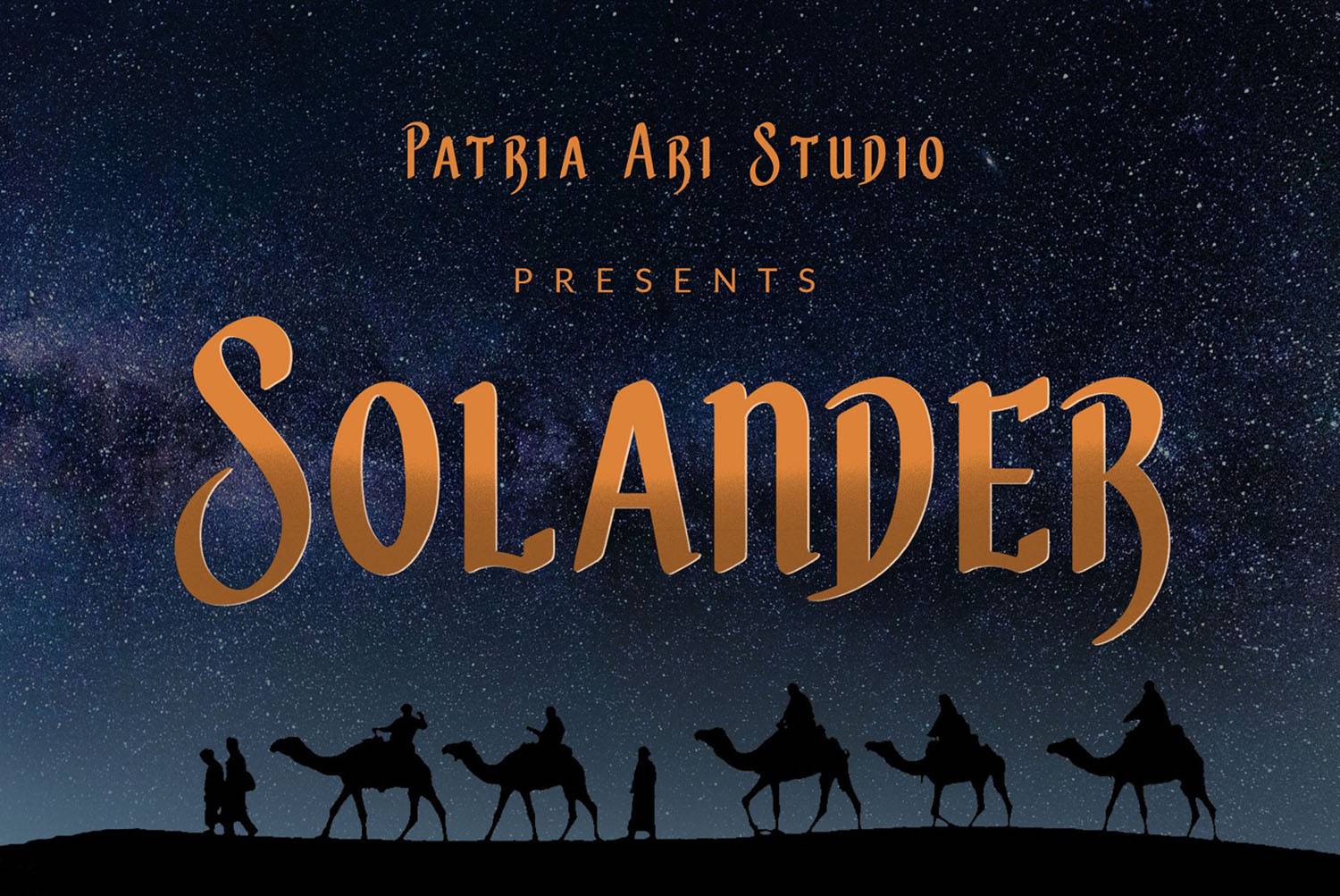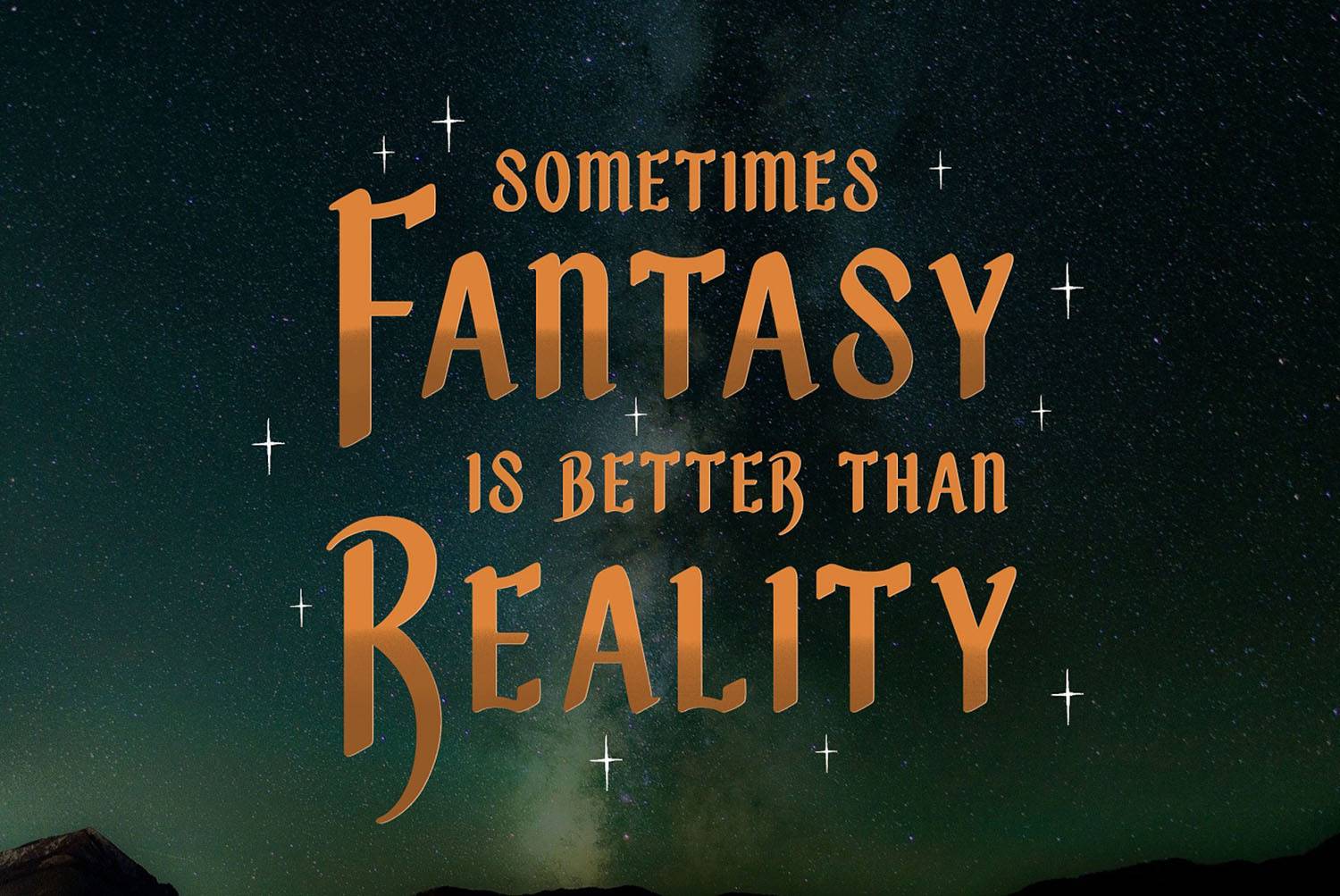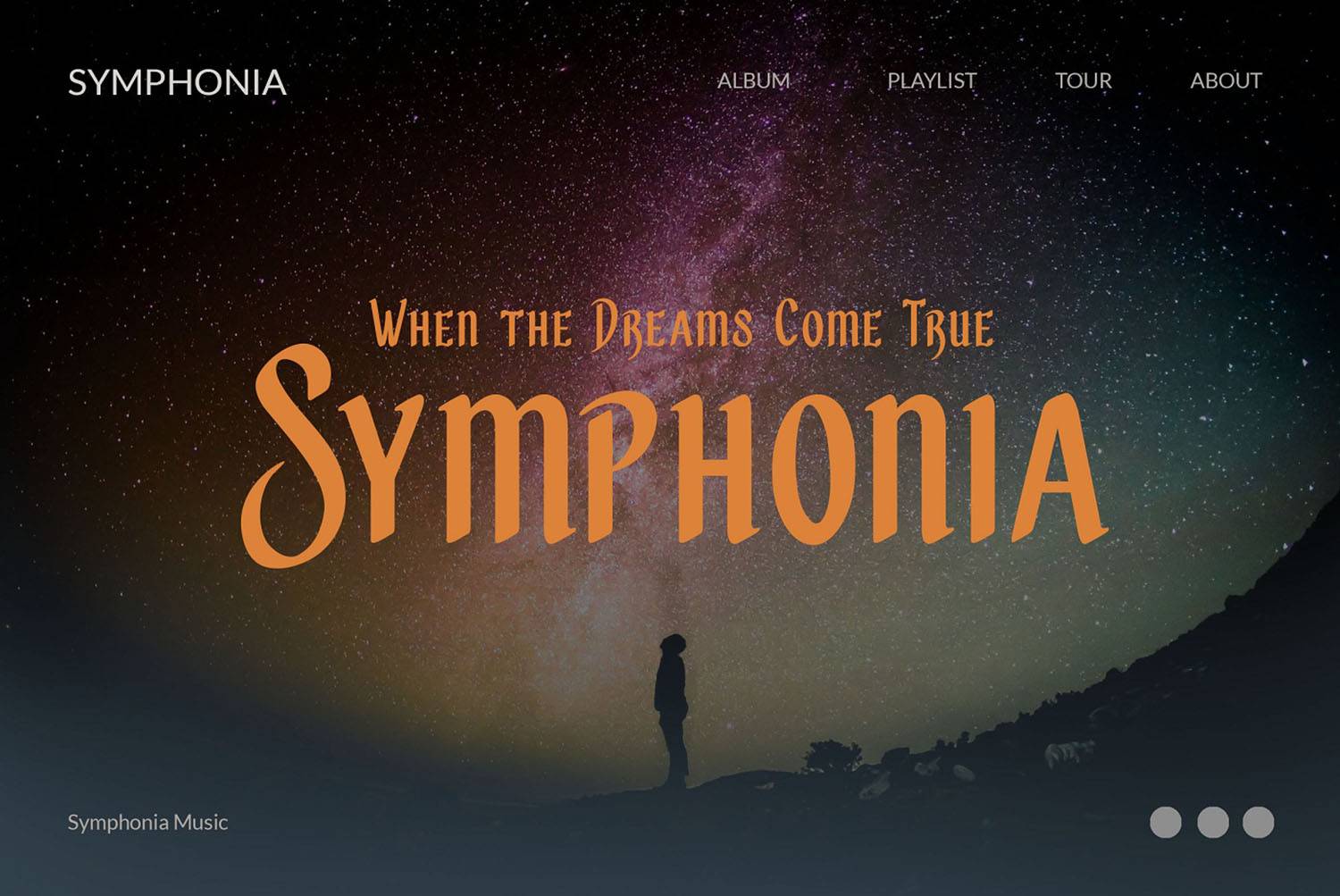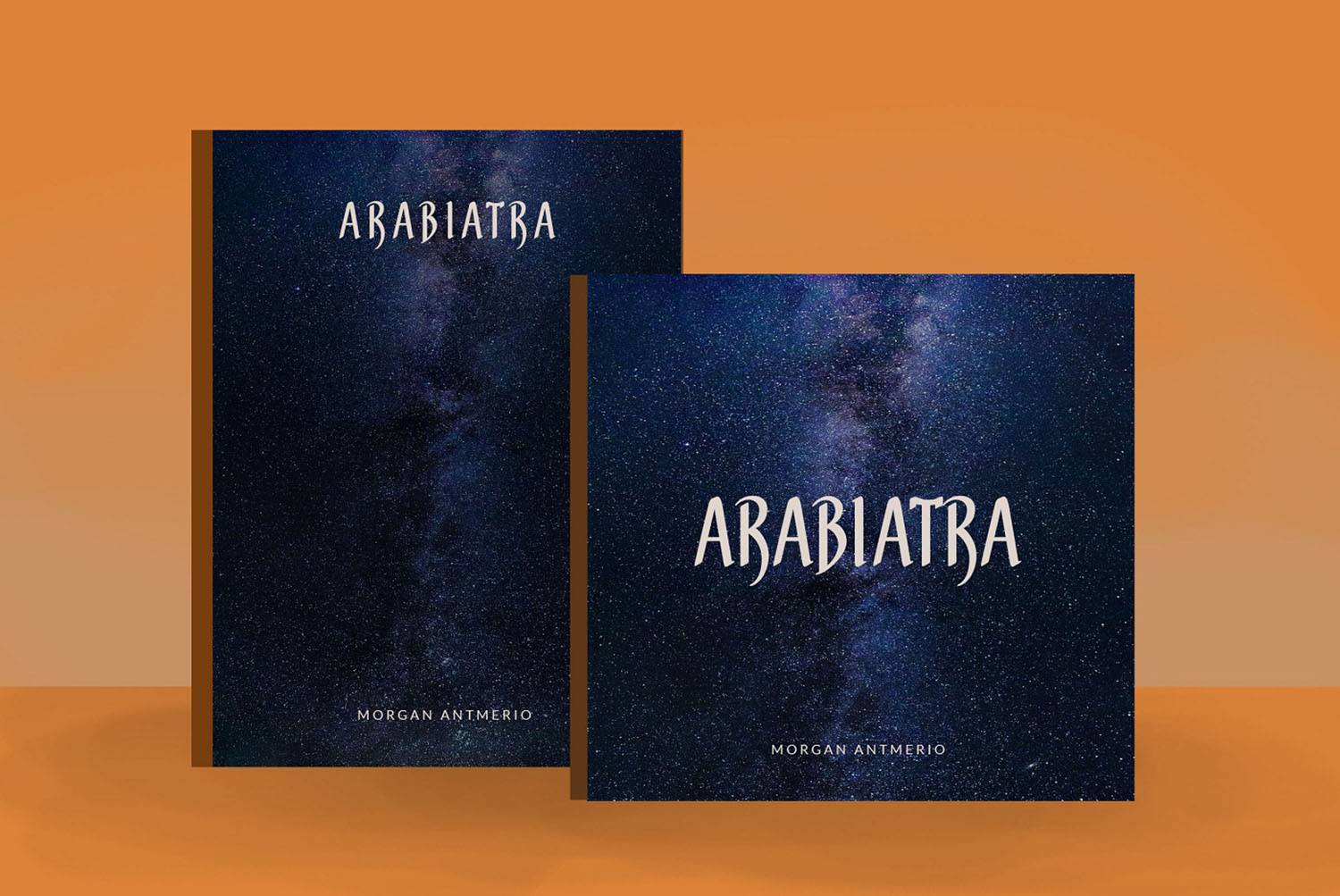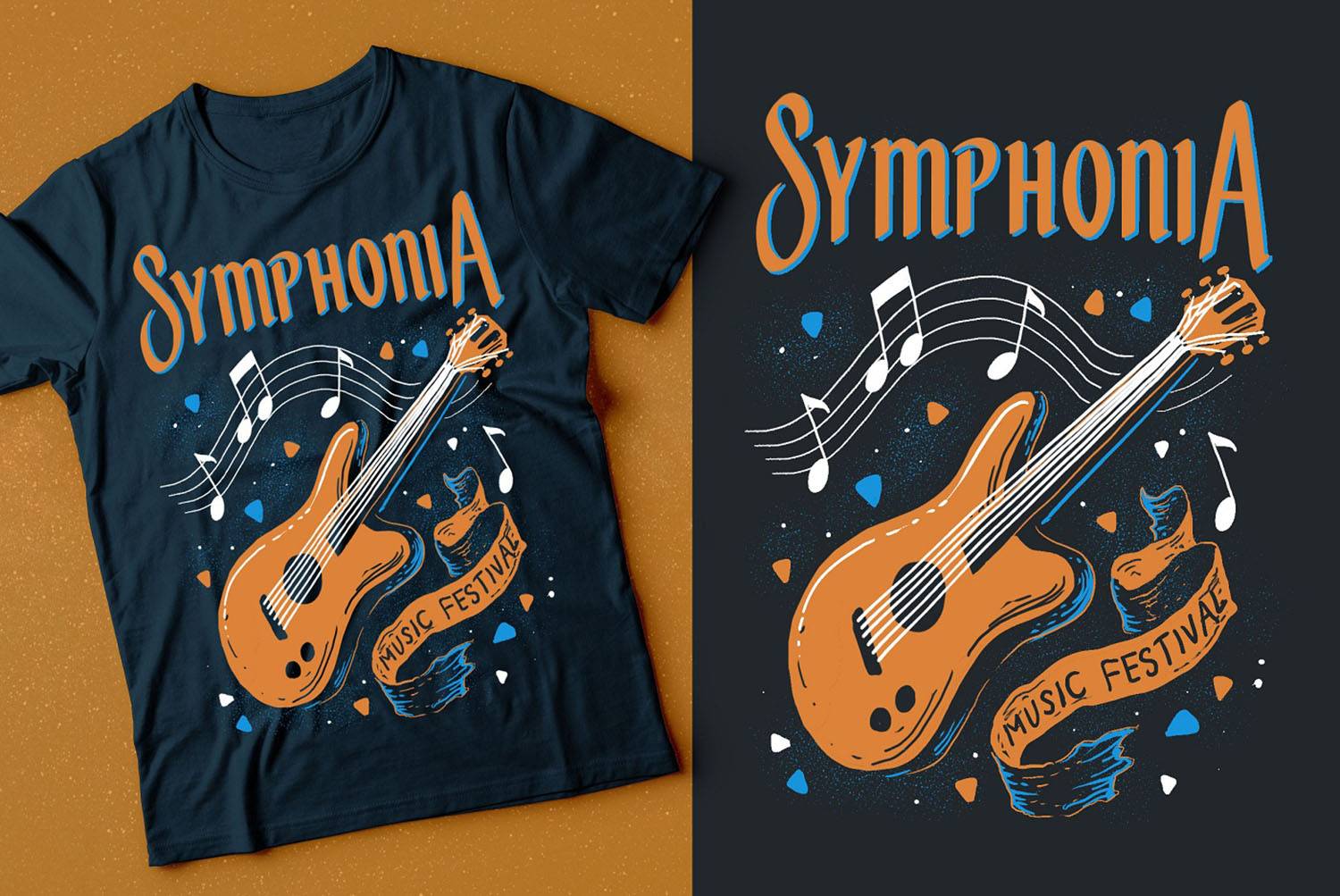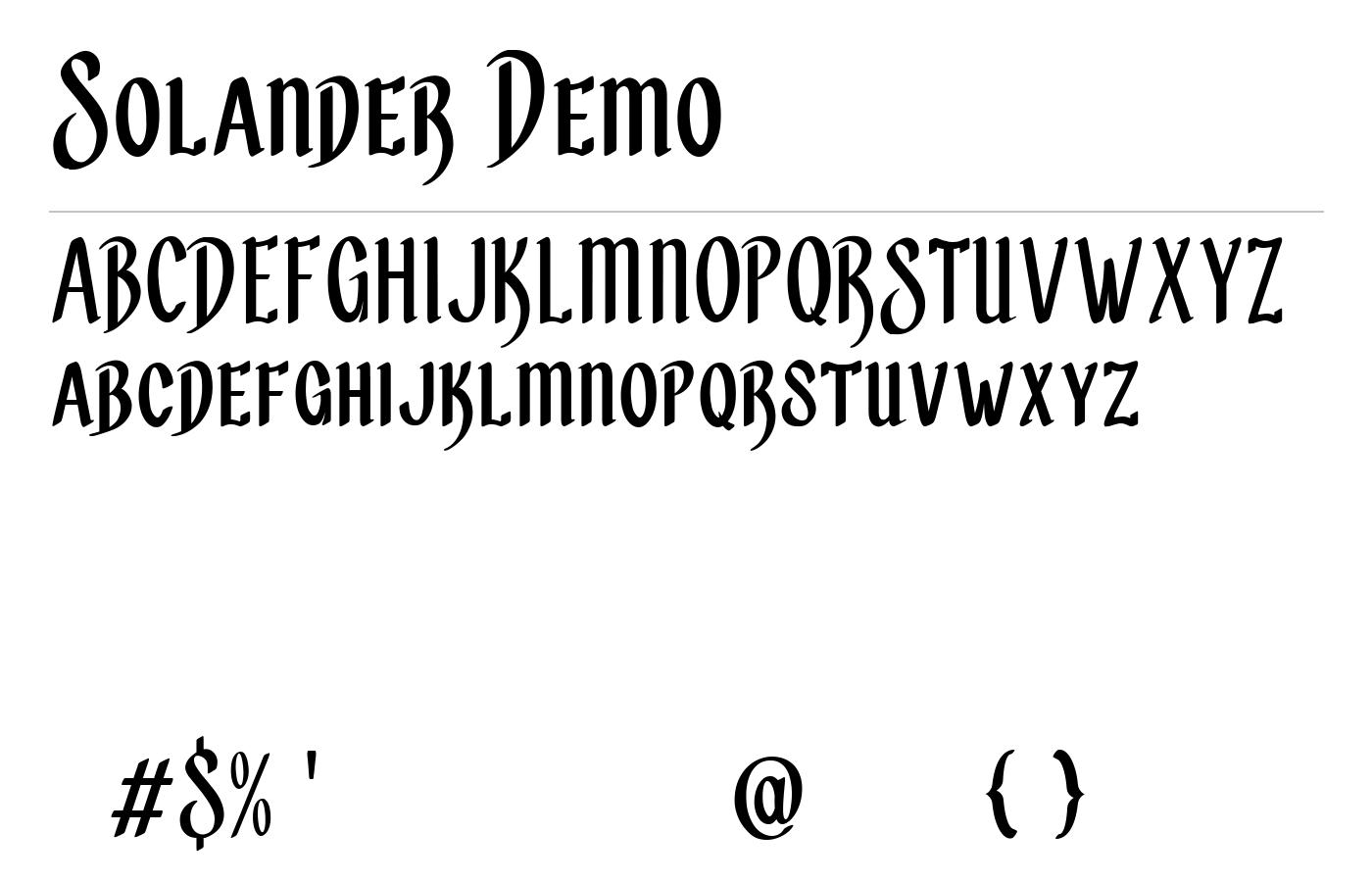
Solander is a bold, condensed serif font with sharp, dramatic strokes and a unique vintage flair. Its tall, narrow letterforms with pronounced contrast and distinctive curved details create a mysterious, elegant feel, making it ideal for headlines, logos, and branding that seek a bold, artistic statement. This font works well for creative projects needing a strong, stylish impact with a hint of classic charm.
Solander Font
About Solander Font
| Font family | Solander Font |
| Release date | 2020-05-24 |
| Designer | Patria Ari Wijonarko |